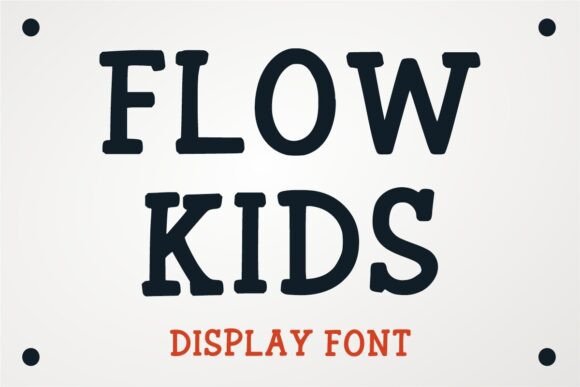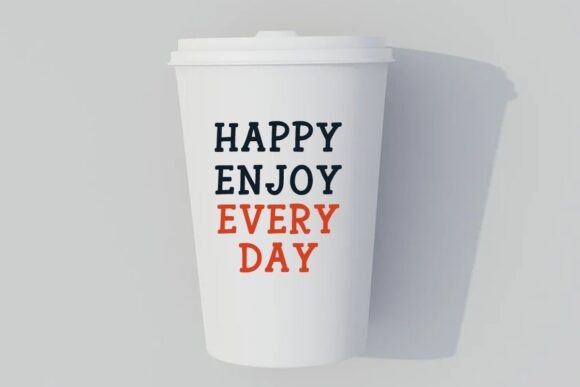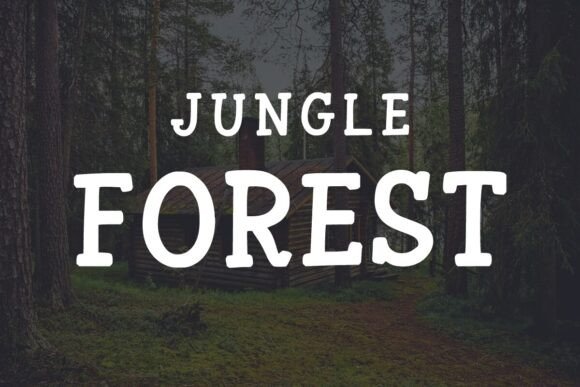
Flow Kids Font
About the Flow Kids Font
Presenting Flow Kids Font, a unique and stylish typeface that will make your work stand out. Flow Kids is a uppercase font with a vintage, classic. It’s perfect for a wide range of projects, including blog posts, logos, branding, ads, invitations, greeting cards, planners, photo albums, decorations, and more.
Flow Kids’ uppercase style and vintage feel make it ideal for headlines, short text blocks in branding materials, and playful packaging designs. It works well for projects needing a touch of nostalgic charm, such as invitations, greeting cards, or children’s book titles. However, its limited character set and vintage styling make it unsuitable for body text or UI elements requiring high readability.
The font’s personality is cheerful and friendly, yet classic and dependable. It projects a sense of timelessness without appearing dated.
For effective pairings, consider a clean sans-serif like Open Sans for body copy to balance its vintage charm. Alternatively, a more geometric sans-serif, such as Futura, could create a modern contrast, while a delicate script font would add a touch of elegance for specific applications.
Flow Kids Font Usage Examples
Flow Kids Font Example